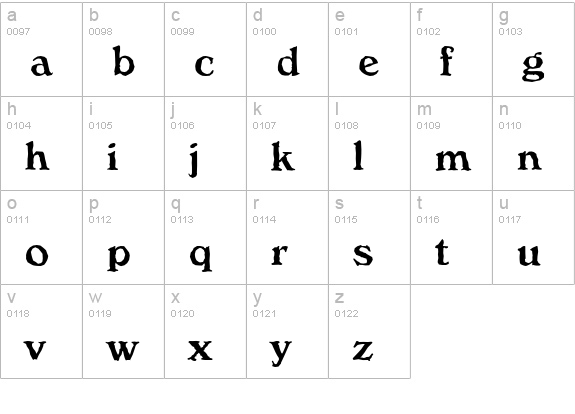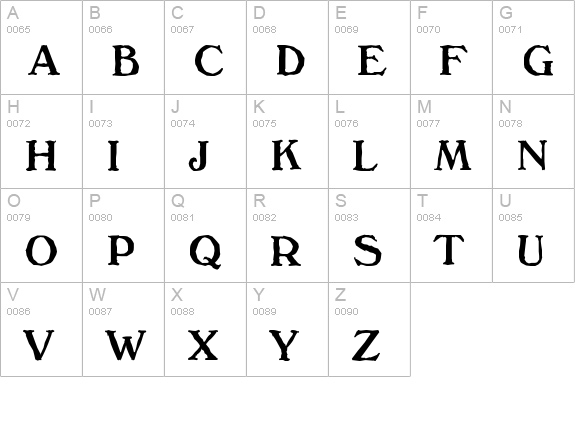
VeronaAntique-Medium-Regular Font Details
VeronaAntique-Medium-Regular is a balanced, medium-weight variant in the VeronaAntique typeface family \xE2\x80\x94 well suited to sub-headlines, navigation, and balanced editorial work.
VeronaAntique-Medium-Regular is a classic and elegant font that exudes timeless charm and sophistication. With its intricate details and balanced proportions, this typeface is perfect for adding a touch of vintage flair to your design projects. The medium weight of the font strikes the perfect balance between readability and style, making it versatile for a wide range of applications. Best of all, VeronaAntique-Medium-Regular is available for free download at FontsMarket.com. Whether you're working on a branding project, a wedding invitation, or a poster design, this font will elevate your work with its distinctive character and old-world charm. Download VeronaAntique-Medium-Regular today and add a touch of elegance to your designs.